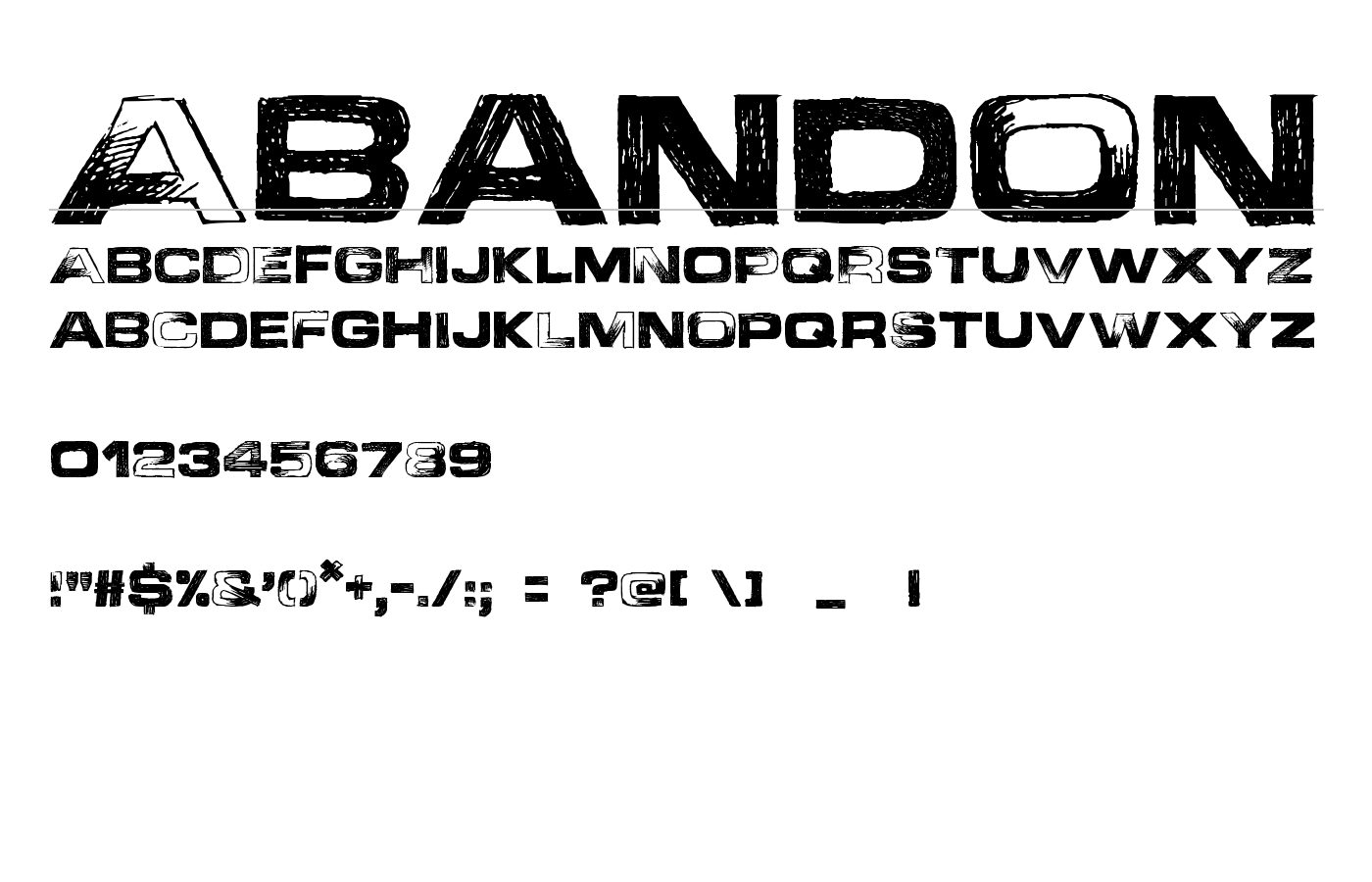
Abandon is a bold, distressed sans serif font with a rough, textured appearance that gives it a gritty, worn-out vibe. Its strong, blocky letterforms with uneven edges and varying stroke weights make it ideal for designs seeking a rebellious, urban, or edgy feel. This font works great for posters, headlines, and branding projects that want to convey a raw, energetic personality.
Abandon Font
About Abandon Font